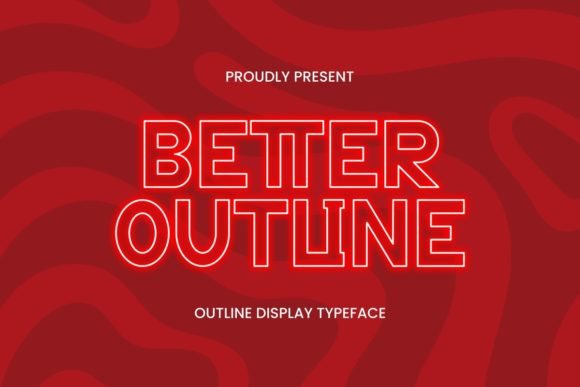
**Introducing Better Outline: The Ultimate Font for Professional Resumes and Captivating Visuals**
In the competitive world of modern job hunting, your resume serves as your golden ticket to success. But in a sea of countless applications, how do you ensure yours stands out and makes a lasting impression? The answer lies in Better Outline, the game-changing display font designed to elevate your resume to new heights.
Better Outline is not just a font; it's a masterpiece crafted with precision and elegance. Its clean and modern outline style instantly grabs attention, leaving a lasting imprint on the minds of potential employers. With Better Outline, your resume becomes a captivating visual masterpiece that demands attention and respect.
Beyond the realm of resumes, Better Outline unleashes a world of creative possibilities. Its versatility extends from wall decoration and printing to eye-catching quotes, branding, and even decorative lighting. Whether you're a professional designer, a creative entrepreneur, or simply seeking a touch of sophistication in your personal projects, Better Outline has got you covered.
Our team at Masyafi Studio has poured our hearts and souls into creating Better Outline, ensuring that every stroke and curve is a testament to our unwavering commitment to excellence. We believe that fonts have the power to transform, to inspire, and to create unforgettable experiences.
So why settle for ordinary when you can have extraordinary? Embrace Better Outline today and unleash the full potential of your creative endeavors. Let your resume soar to the top of the pile, make your designs the talk of the town, and let your words dance with grace and elegance.
**Key Features:**
* Outline style for a modern and eye-catching look
* Ideal for professional resumes and design projects
* Versatile and suitable for a wide range of applications
**Reasons to Choose Better Outline:**
* **Stand out from the crowd:** Captivate potential employers and make your resume unforgettable.
* **Express your creativity:** Unleash your imagination in countless design projects.
* **Experience the difference:** Feel the joy of working with a font that combines style, functionality, and versatility.